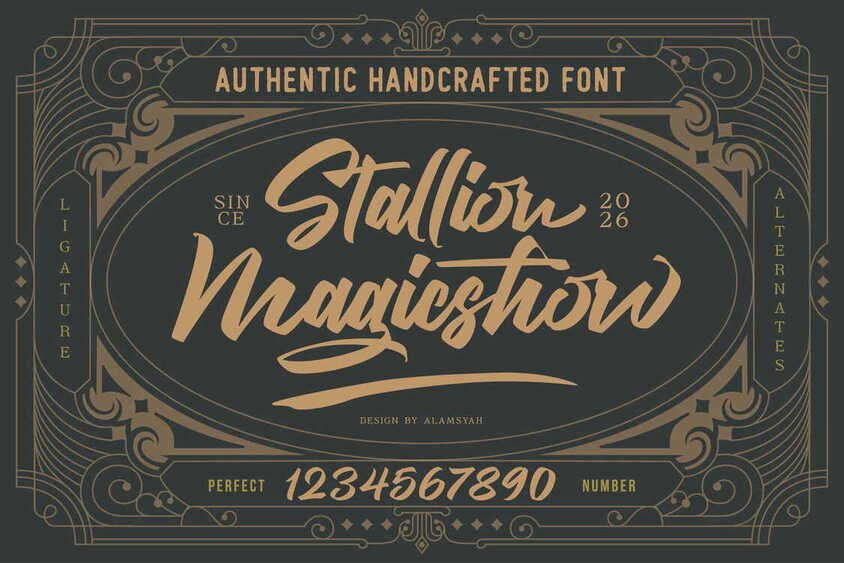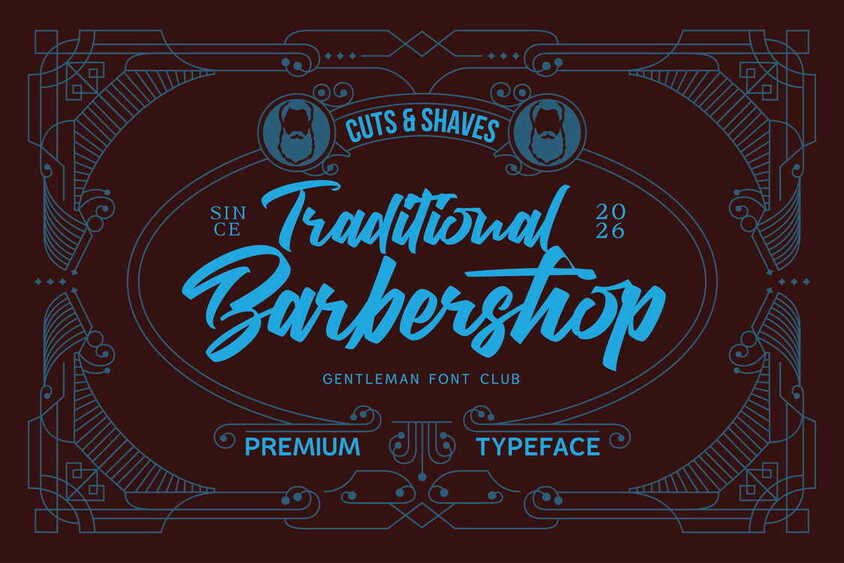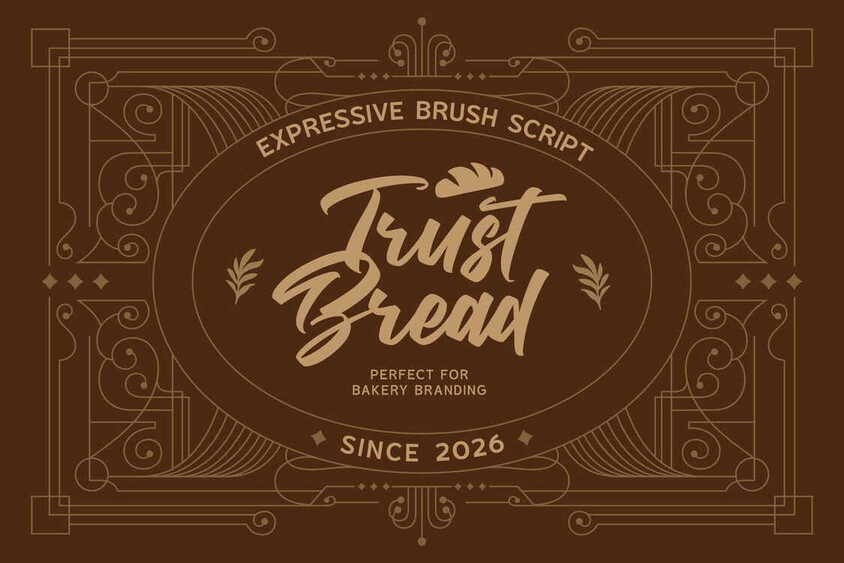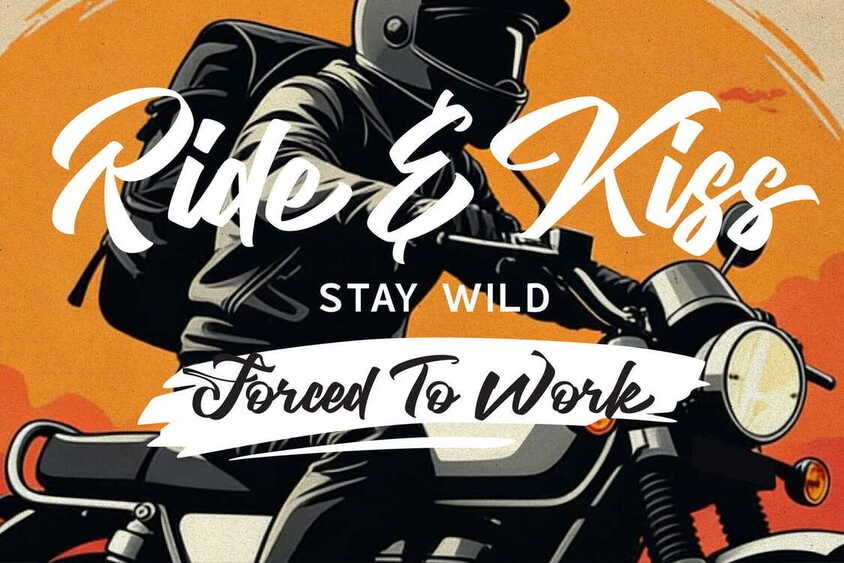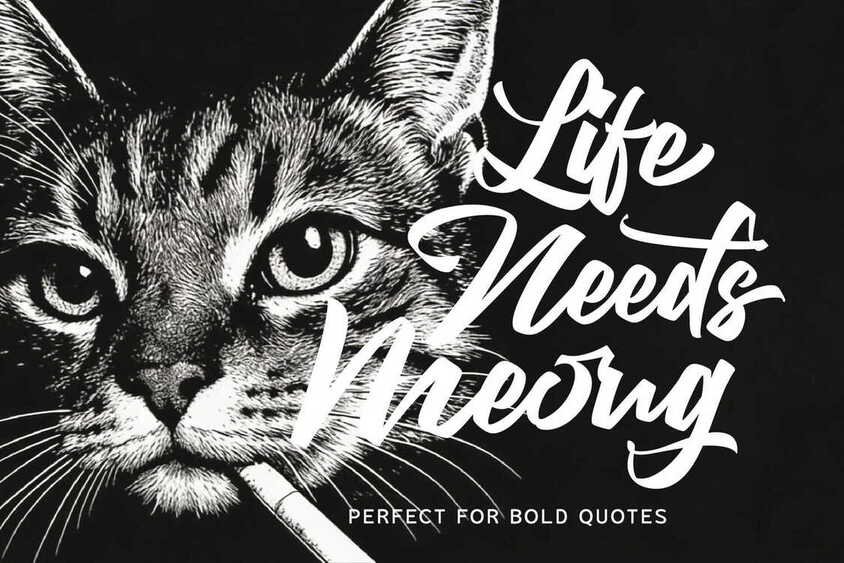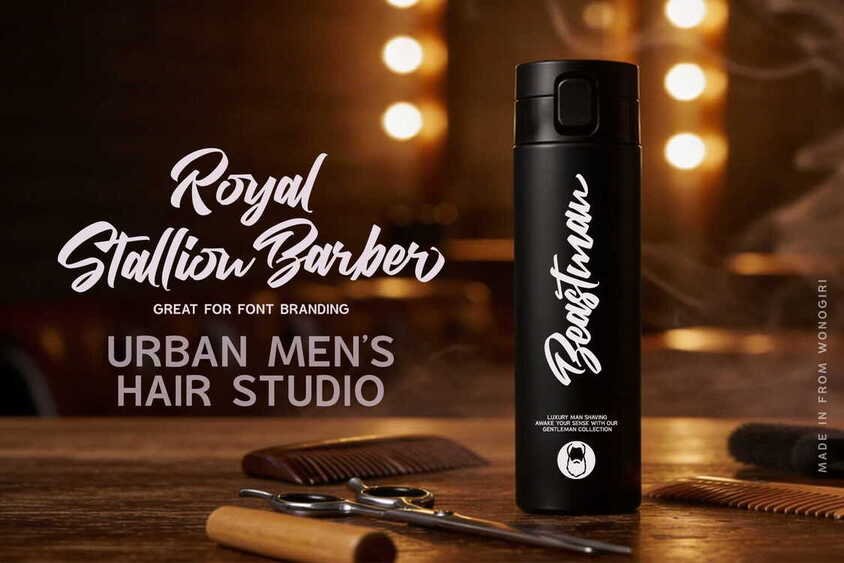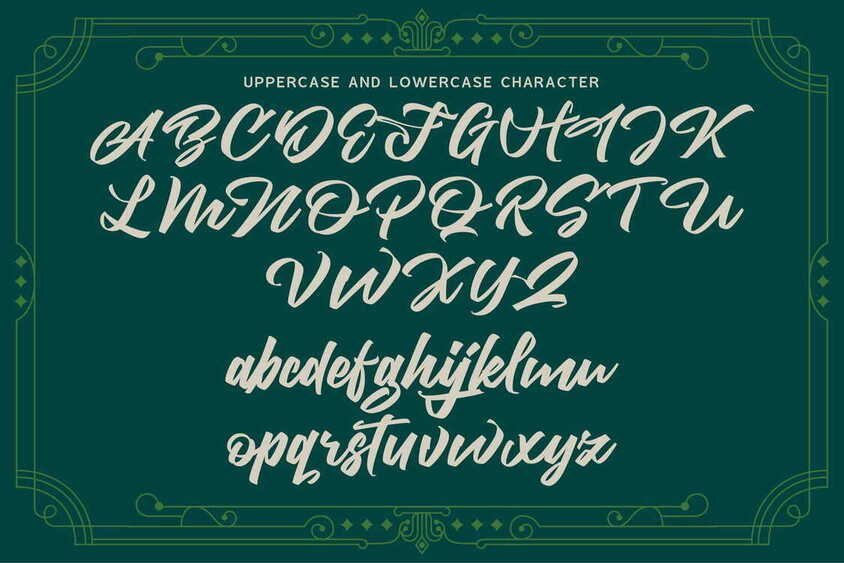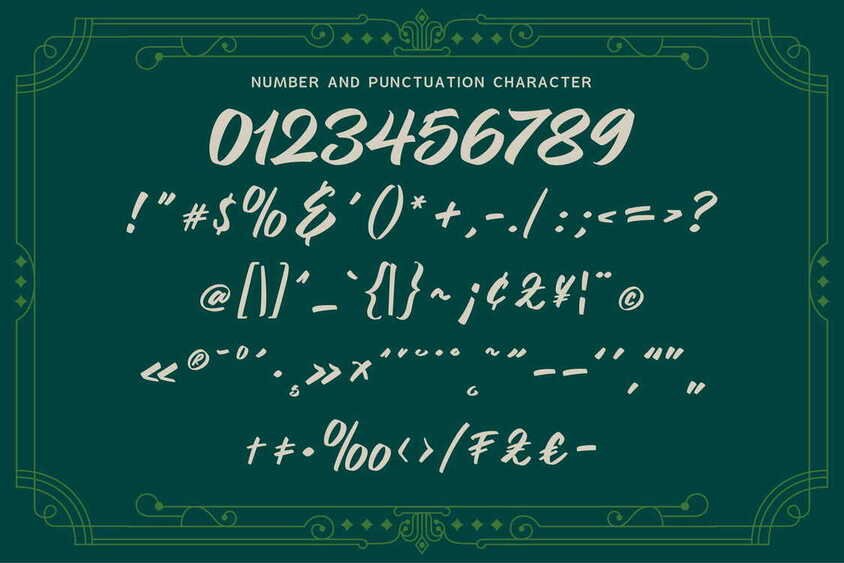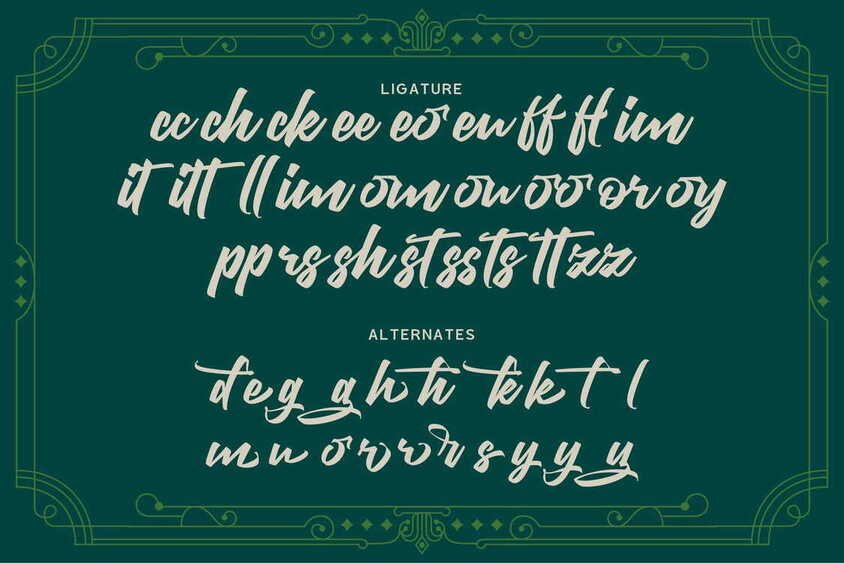
Stallion Magicshow is an authentic handcrafted script font with bold brush strokes, smooth curves, and a natural lettering rhythm—crafted to deliver a strong, stylish, and soulful look. Every character is designed with expressive movement, giving your typography a premium hand-lettered feel that instantly stands out.
Blending a vintage vibe with a modern edge, Stallion Magicshow fits effortlessly into many design styles. It’s a perfect choice for projects that need confident, eye-catching lettering—such as logos, branding, product packaging, labels, posters, signage, apparel, and social media graphics.
What makes Stallion Magicshow special is its dynamic letterforms and display-ready presence. With ligatures and alternates, you can create more unique, custom-looking compositions and elevate your designs with a memorable typographic signature.